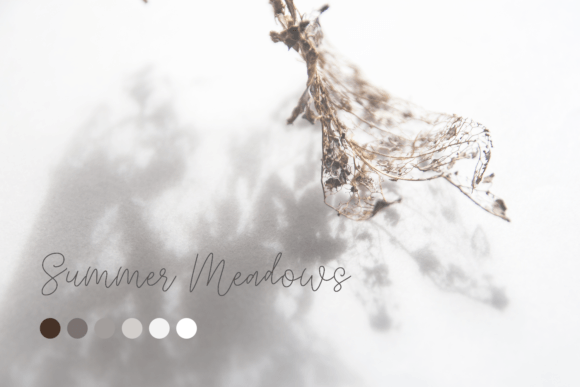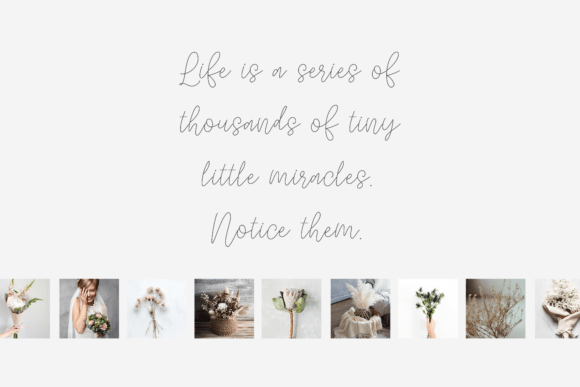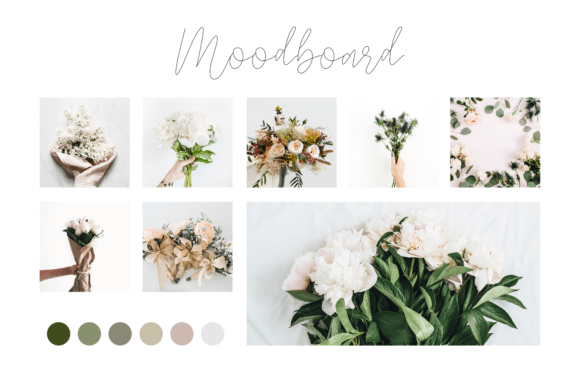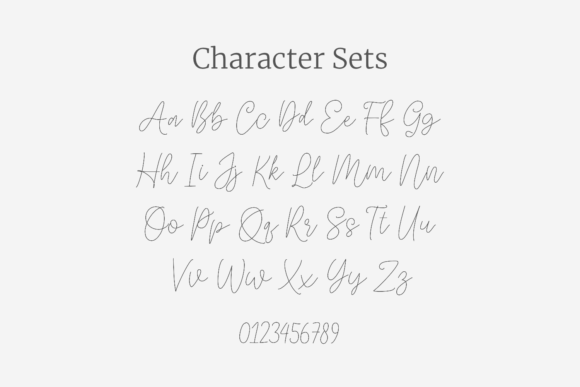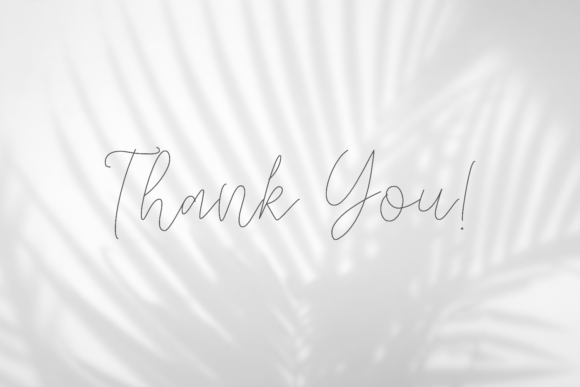
Introduction to Quietly Rose Font
As a designer, there’s nothing quite like the thrill of bringing a creative project to life. You spend hours pouring over every detail, searching for the perfect font to elevate your design and leave a lasting impression. That’s where the Quietly Rose Font comes in – a stunning, exclusive handwritten font that adds a touch of luxury to any project.
With its elegant lines and sophisticated details, the Quietly Rose Font is the ultimate design resource for those seeking a high-quality, high-end look. Whether you’re working on a branding project, creating a wedding invitation, or simply want to add some sophistication to your designs, this font is the perfect choice. And the best part? It’s available for free download, making it an invaluable addition to any designer’s toolkit.
So why settle for a generic font when you can have a true showstopper like the Quietly Rose Font? With its transparent background and versatile design, this font is sure to elevate your creative projects and leave a lasting impression on your audience.
Key Features of Quietly Rose Font
- High-quality design resource ideal for creative projects, offering a unique aesthetic.
- Comes with a transparent background, allowing for versatile usage in various design applications.
- Features a delicate, rose-inspired design with intricate details, perfect for adding a touch of elegance.
- Supports various font sizes and resolutions, ensuring crisp and clear display across different platforms.
- Perfect for use in a variety of creative projects, including invitations, greeting cards, and wedding stationery.
Honest Review: Quietly Rose Font
As a designer, I’ve had the pleasure of working with numerous fonts, but the Quietly Rose Font has truly caught my attention. This high-quality design resource is perfect for any creative project that requires a touch of elegance and sophistication.
- ✨ The font’s transparent background makes it incredibly versatile and easy to use on any design project.
- ✨ The intricate details and delicate design elements add a unique touch to any text-based element.
- ⚠️ The font may not be suitable for very large or bold text, as the delicate design elements may get lost.
- ⚠️ Some users may find the font’s complexity a bit overwhelming, so it’s essential to use it judiciously.
Overall, I’m thoroughly impressed with the Quietly Rose Font. Its high-quality design and versatility make it an excellent addition to any designer’s toolkit. Whether you’re working on a personal or commercial project, this font is sure to impress.
Tips for Getting the Most Out of Quietly Rose Font
For the best results, use the Quietly Rose Font in combination with other design elements that complement its elegant style. Experiment with different font sizes, colors, and arrangements to achieve a unique and eye-catching design.
The Quietly Rose Font is ideal for a variety of creative projects, including wedding invitations, business cards, and marketing materials. Its free download makes it a convenient and accessible design resource for any project.
Can I use the Quietly Rose Font on a transparent background?
Yes, the Quietly Rose Font is designed to be used on a transparent background, making it perfect for use in digital designs, such as website headers, social media graphics, and other online content. The font’s transparent background allows it to blend seamlessly with any background image or color, giving you complete creative control over your design.